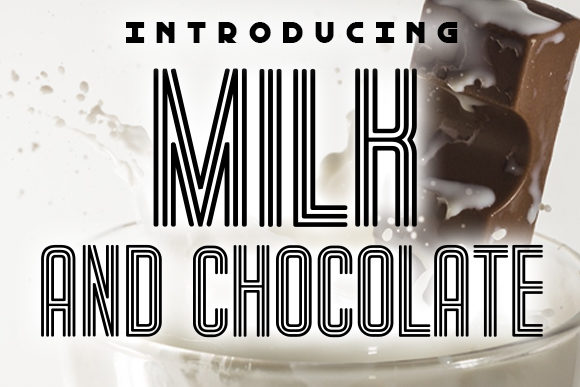
Introducing the Milk and Chocolate Font: A Retro Masterpiece Unleashed!
In a world craving nostalgia, the Milk and Chocolate Font emerges as a typographic time machine, transporting you to an era of classic design. This tri-lined wonder, masterfully crafted by vladimirnikolic, captures the essence of vintage aesthetics, intertwining the charm of the past with the possibilities of the present.
This remarkable display font exudes a retro vibe, evoking memories of simpler times when bold typography ruled the day. Its meticulously crafted characters, adorned with three distinct lines, create a captivating visual texture that demands attention. Let your imagination soar as you envision this font gracing your t-shirts, flyers, posters, and more, injecting a touch of yesteryear's allure into your creative endeavors.
The Milk and Chocolate Font's versatility extends beyond its retro charm. Its inherent playfulness invites you to experiment with different styles and combinations, allowing your creativity to flourish. Whether you're designing eye-catching headlines, captivating logos, or whimsical invitations, this font's adaptability knows no bounds.
Immerse yourself in the Milk and Chocolate Font's captivating aura and let your designs exude an air of timeless elegance. Its retro flair will add a touch of nostalgia to your projects, resonating with audiences who appreciate the beauty of bygone eras. Embrace the allure of the past and propel your designs into the future with this typographic treasure.